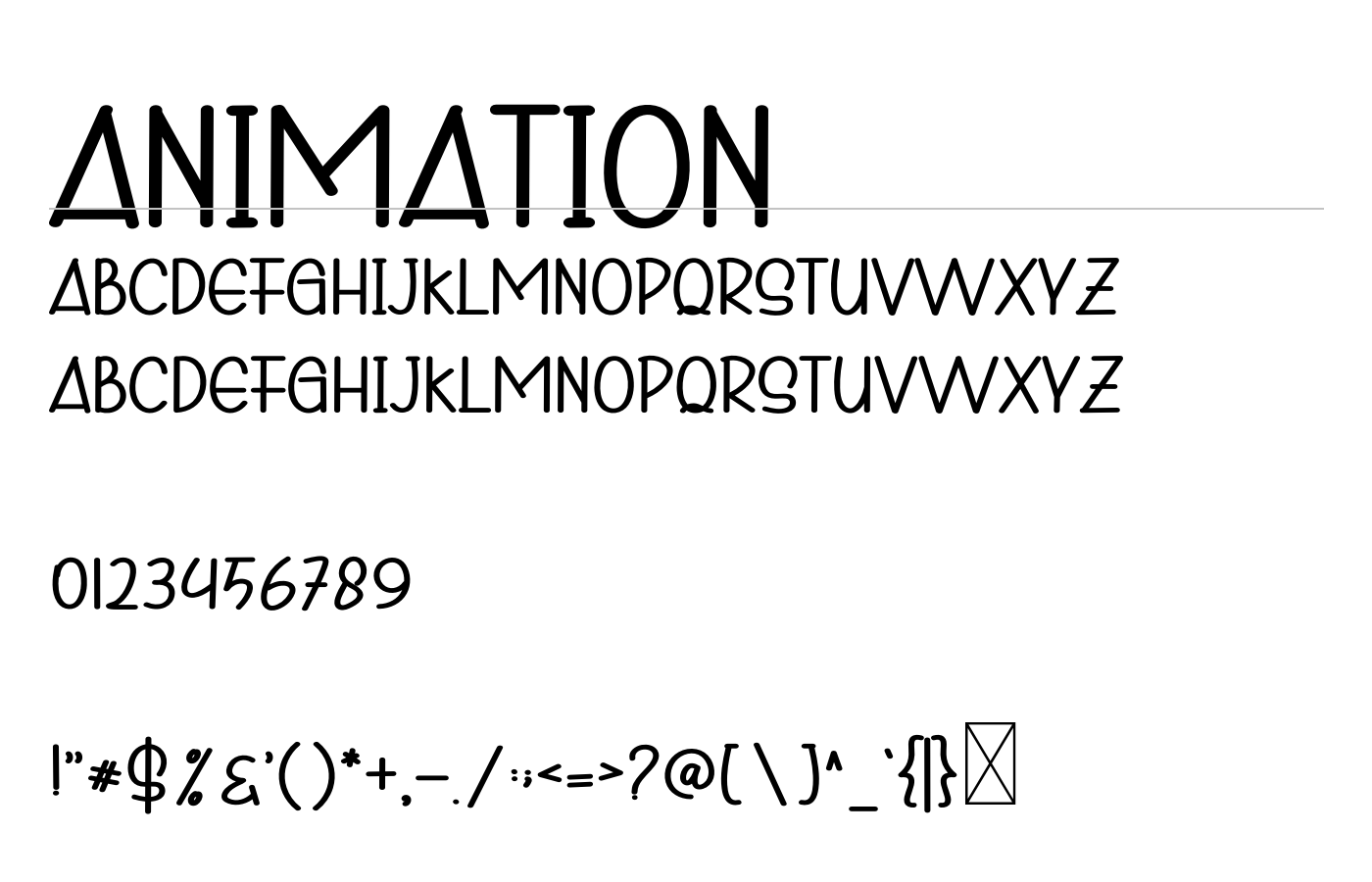
Animation Font is a playful, hand-drawn sans serif typeface with a casual and whimsical feel. Its thin strokes, rounded edges, and slightly irregular letterforms make it ideal for creative projects, children’s content, and informal branding where a friendly and approachable tone is desired. This font works well in headlines, posters, and packaging that seek to convey fun and lightheartedness.
Animation Font
About Animation Font